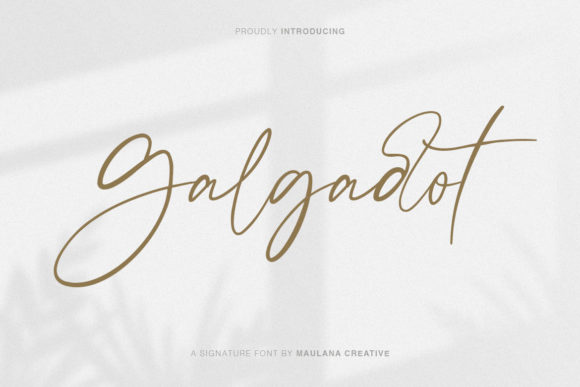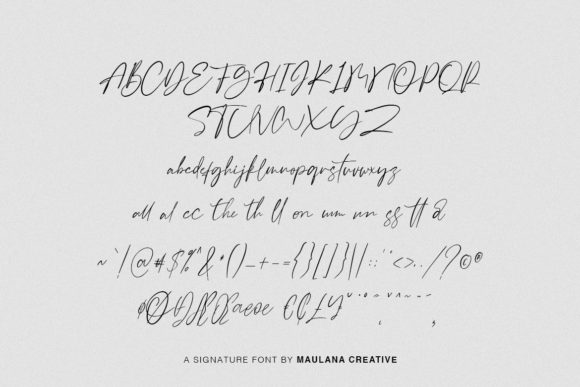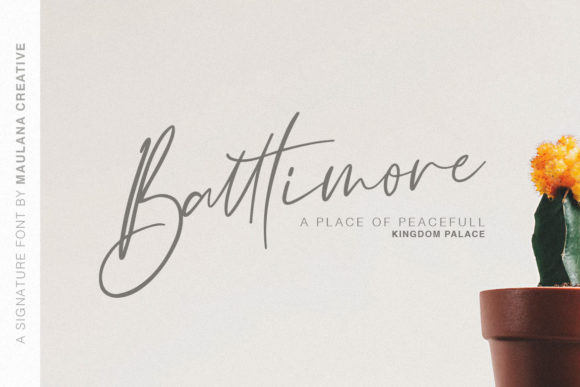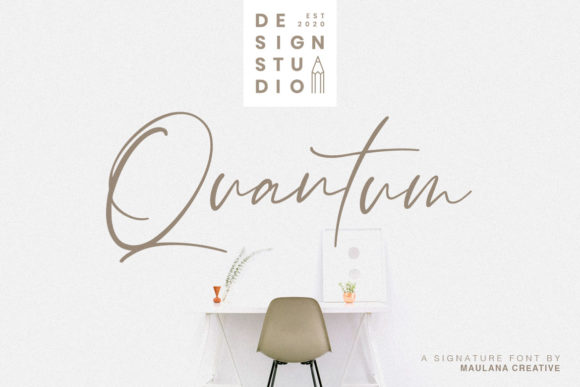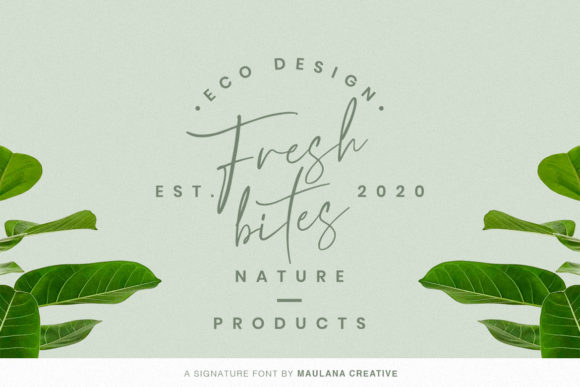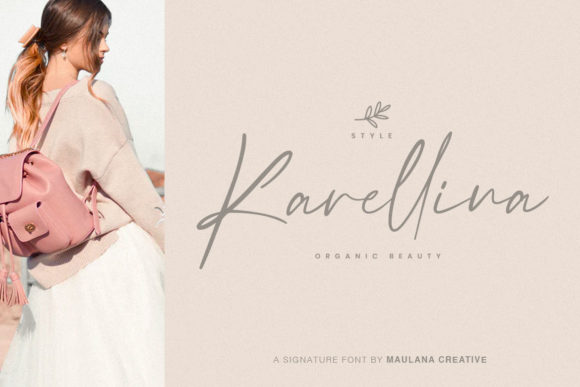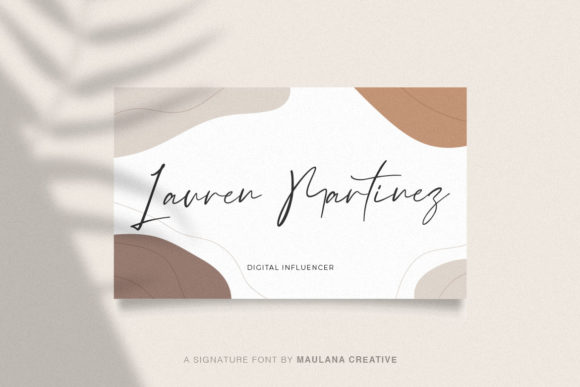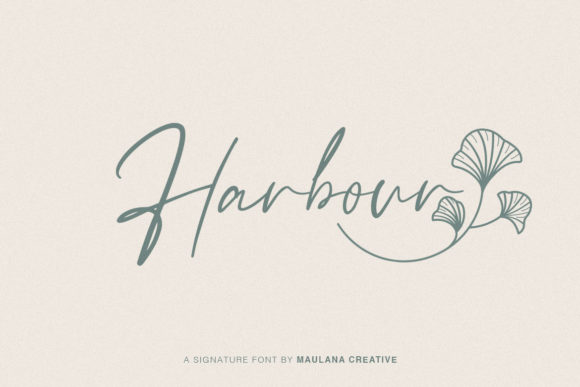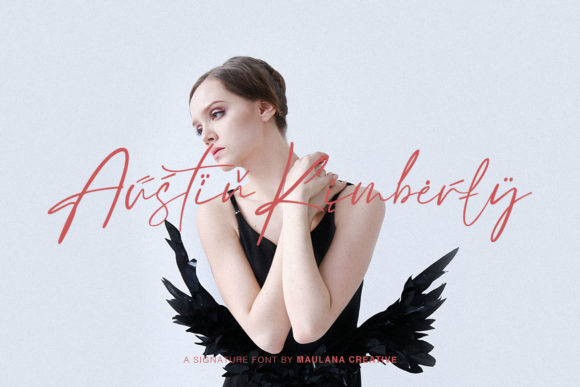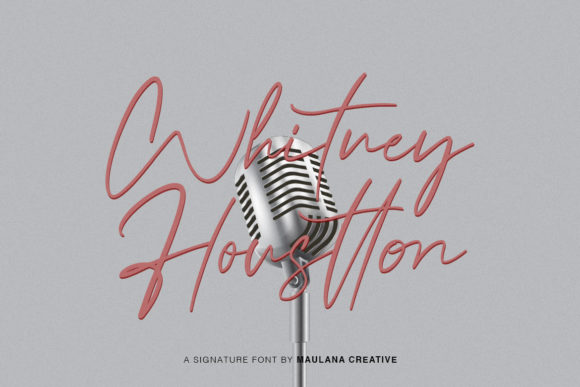
Galgadot Font
About Galgadot Font
Galgadot is a fancy script with charming letters. It’s the ideal typeface for giving your DIY projects a personal and authentic feel!